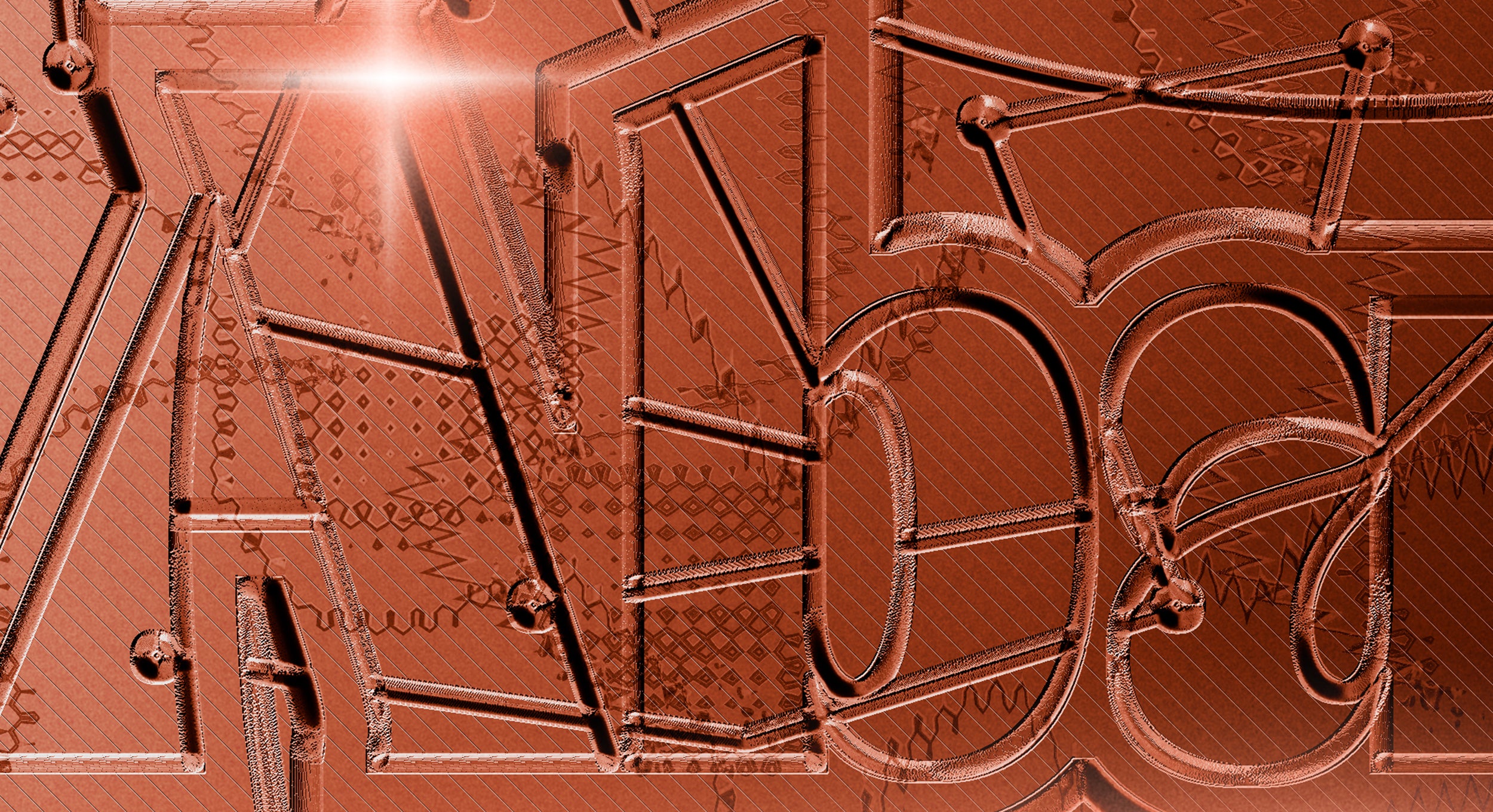
Serene, spacey and sleek, Abalos is the forward-facing, futuristic, retro-like, space-exploring typeface you’re looking for.
Serene, spacey and sleek, Abalos is the forward-facing, futuristic, retro-like, space-exploring typeface you’re looking for – designed in the face of humanity’s next big adventure… Mars exploration. Abalos is befitted with the usual swashes and symbols to stake its claim in the (as yet unwritten) aesthetic of human life on the red planet.
Taking its name from one of Mars’ sand dunes, the typeface’s letterforms look closer to home for their inspiration, taking undulating influence from desert-like waves of Middle Eastern topology. Alongside this, some further restrained Arabic references can be seen within Abalos’ cursive features. Finding a fresh footing in the combination of the past and speculative future – predicting what the two (may) together look like.